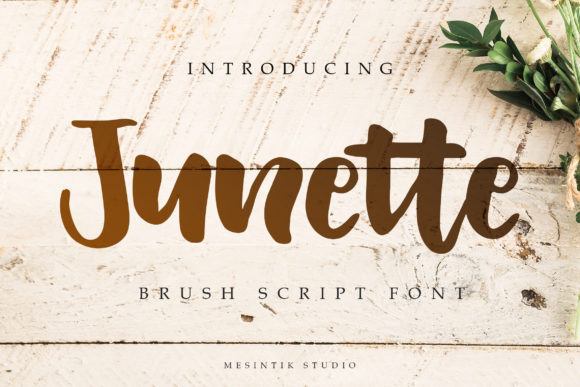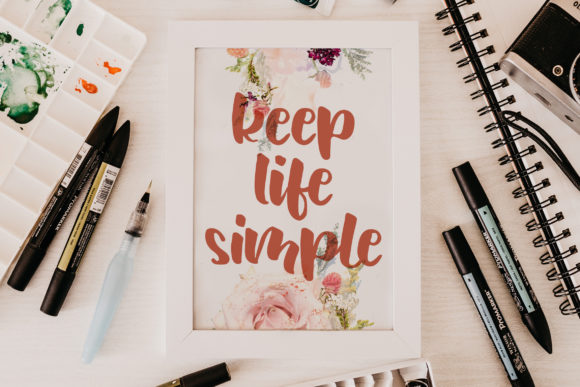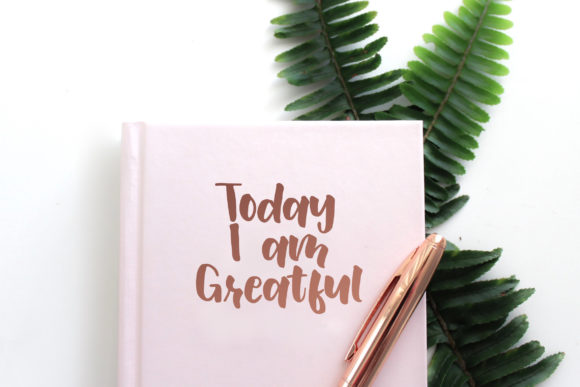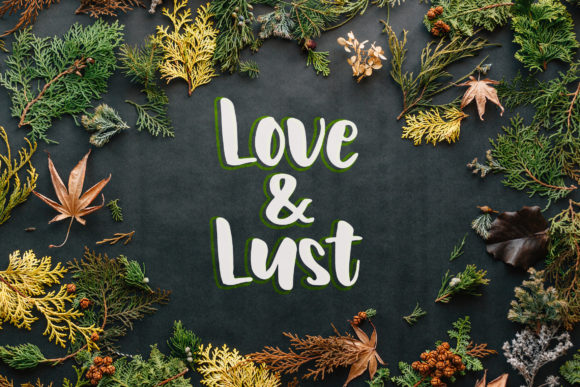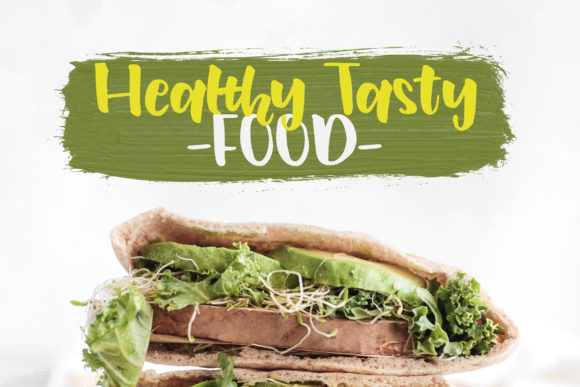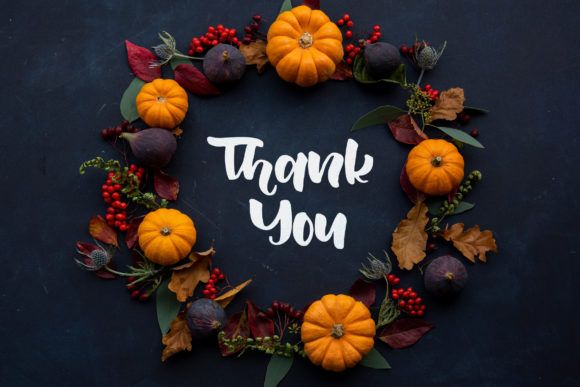
Junette Font
About Junette Font
Junette is a brush script font with a stylish handwritten style that looks natural, classy, and perfect for many projects.